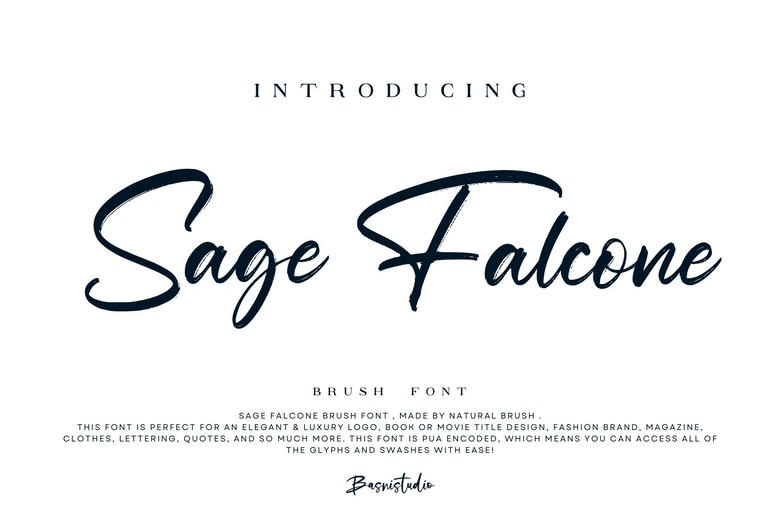
Sage Falcone Font
Sage Falcone is a graphic script that has been meticulously designed in a classy manner. Fonts to be used on Instagram, or calligraphy scripts to be used in the process of doing something yourself, this font will make any creative thought a masterpiece!
Sage Falcone Brush Script Font